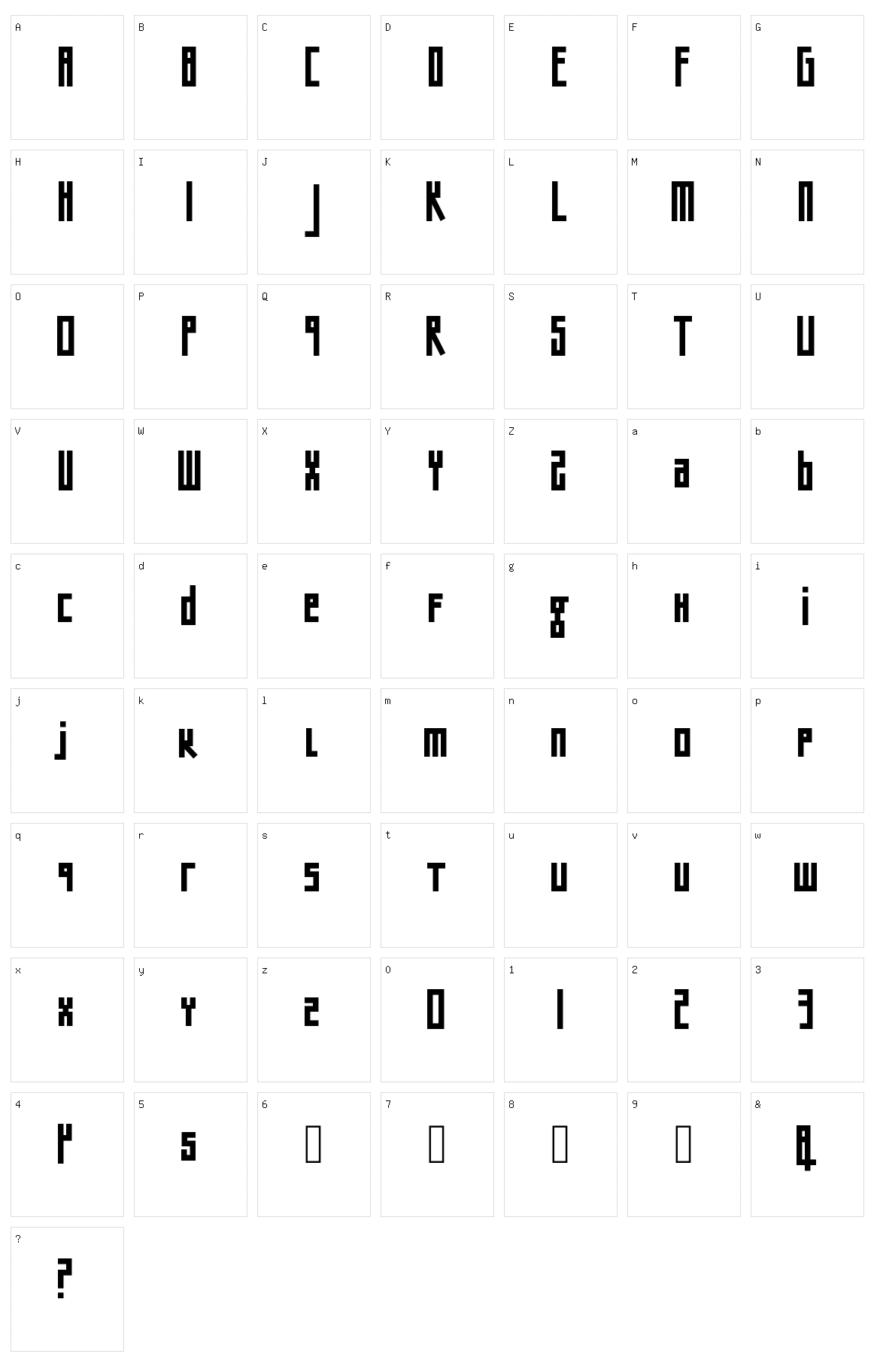
The free font Bigntall is carefully designed by Elliott Mariess, showcasing a thoughtful balance of creativity and usability and falls under the Square font style. When you download the ZIP file, it contains only 3.3 KB of font files, making it lightweight and quick to download. Please review the license details below to understand permitted usage and distribution rights. If license information is not available, we recommend using this font for personal projects only or contacting the author directly for commercial usage permissions.